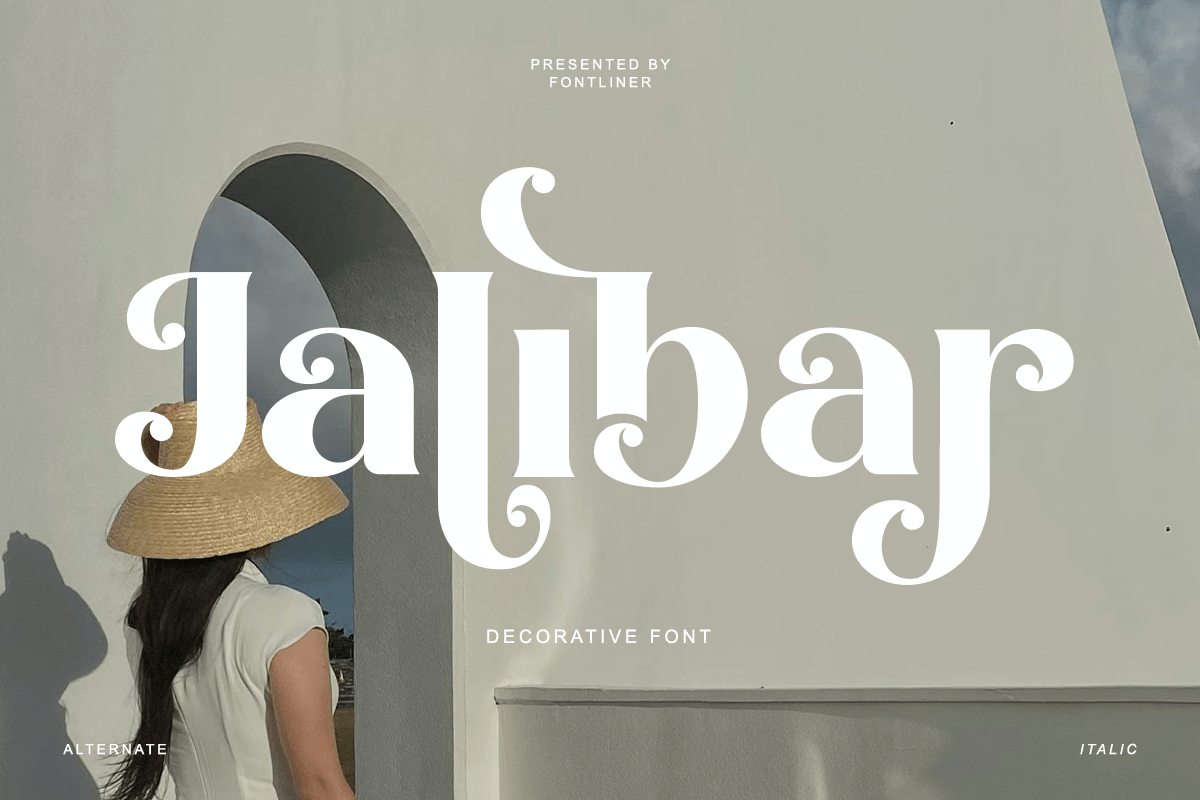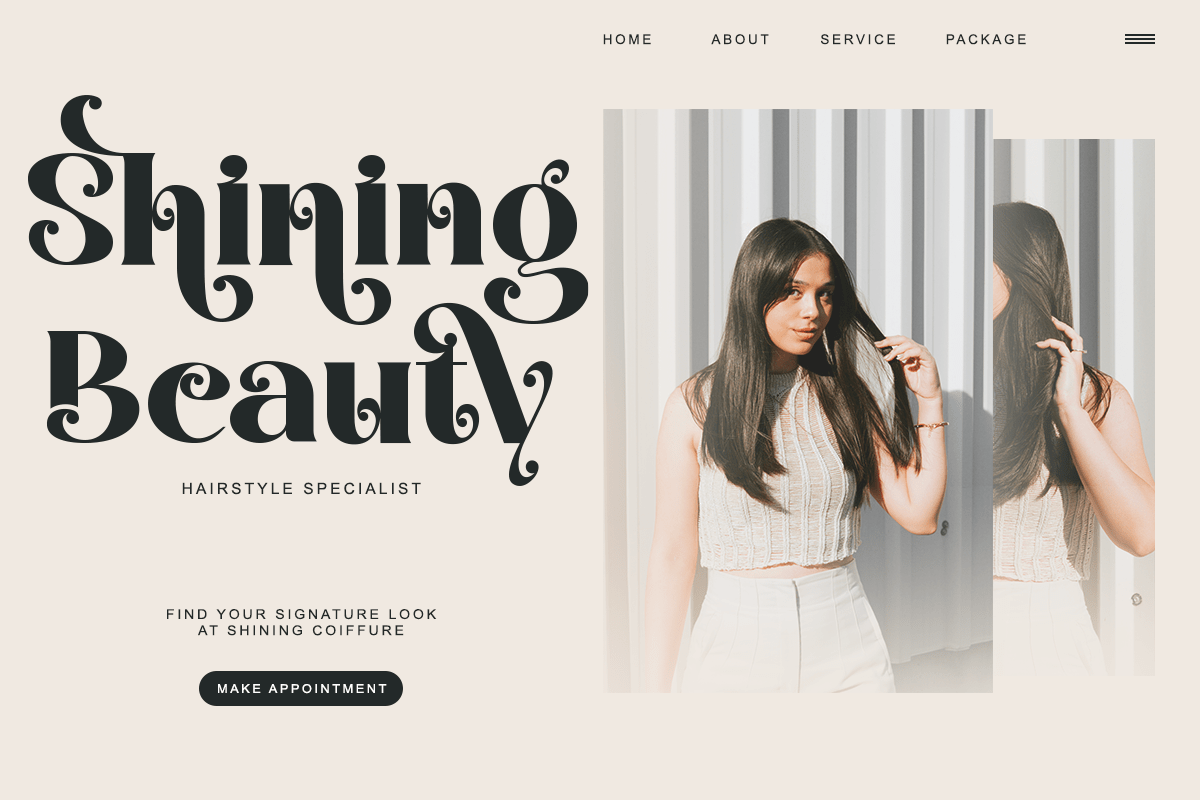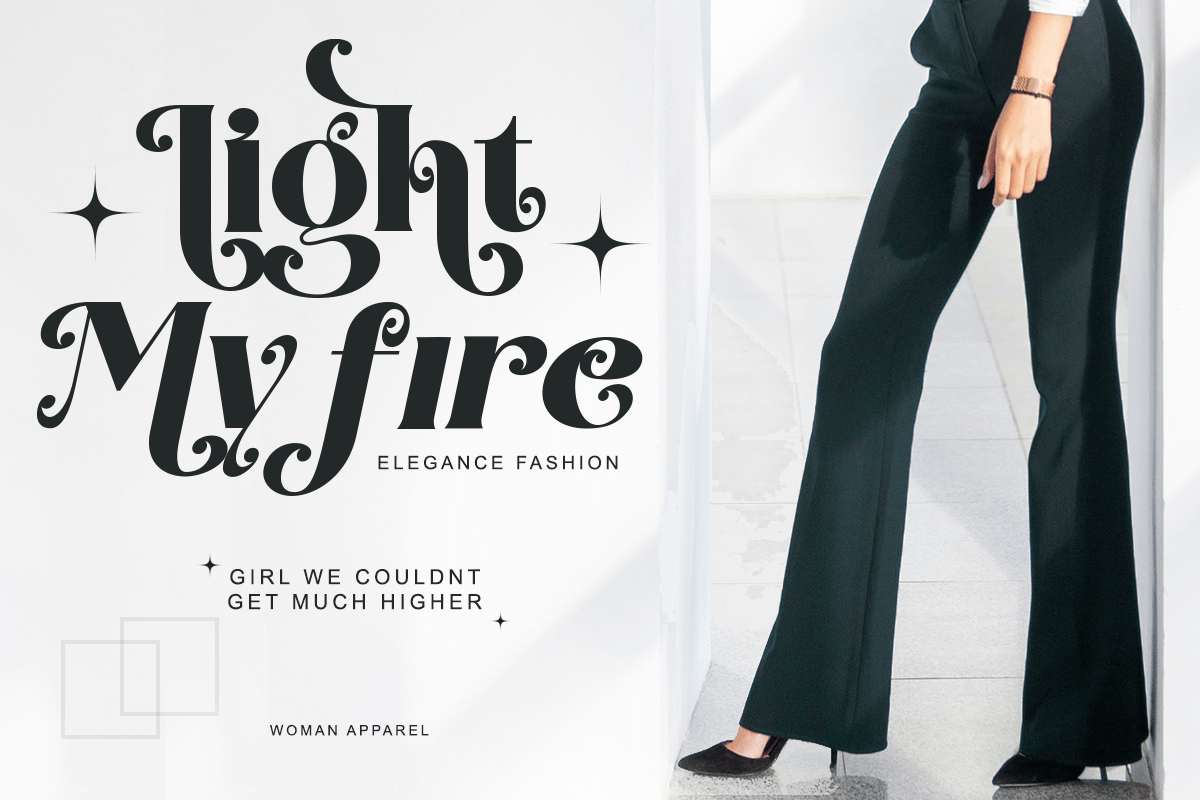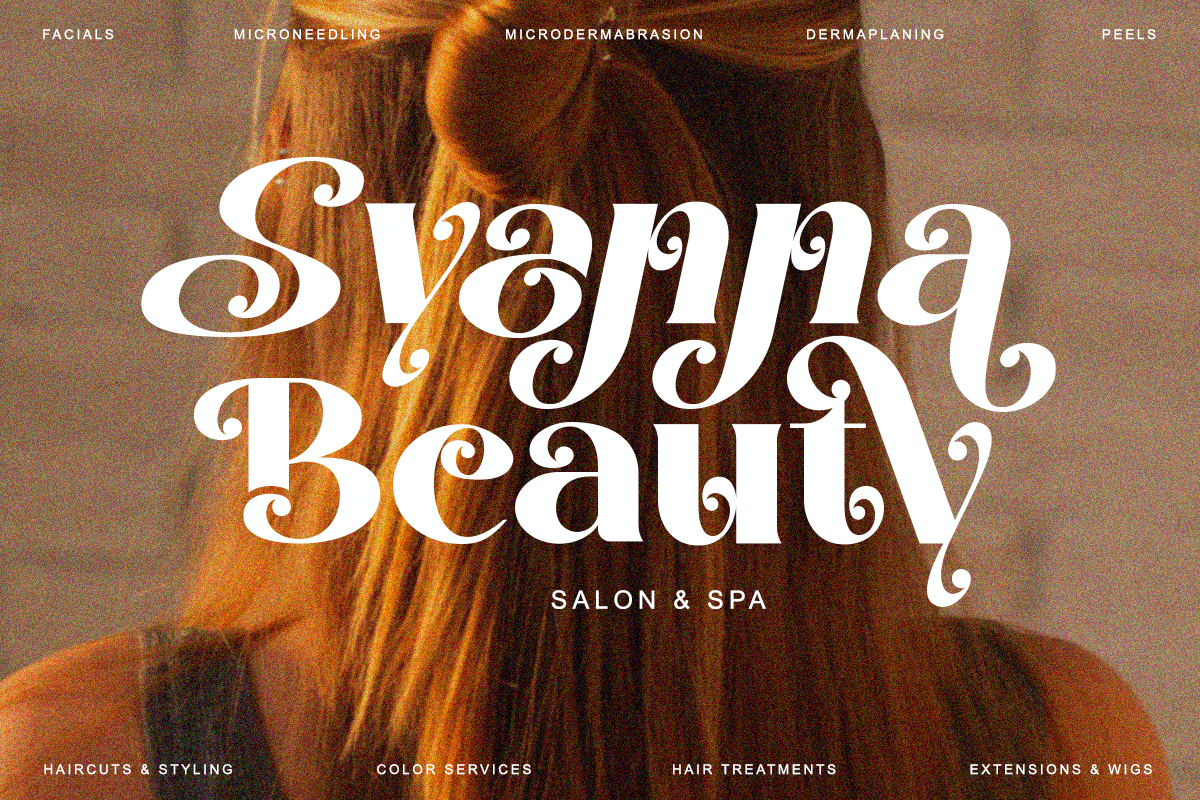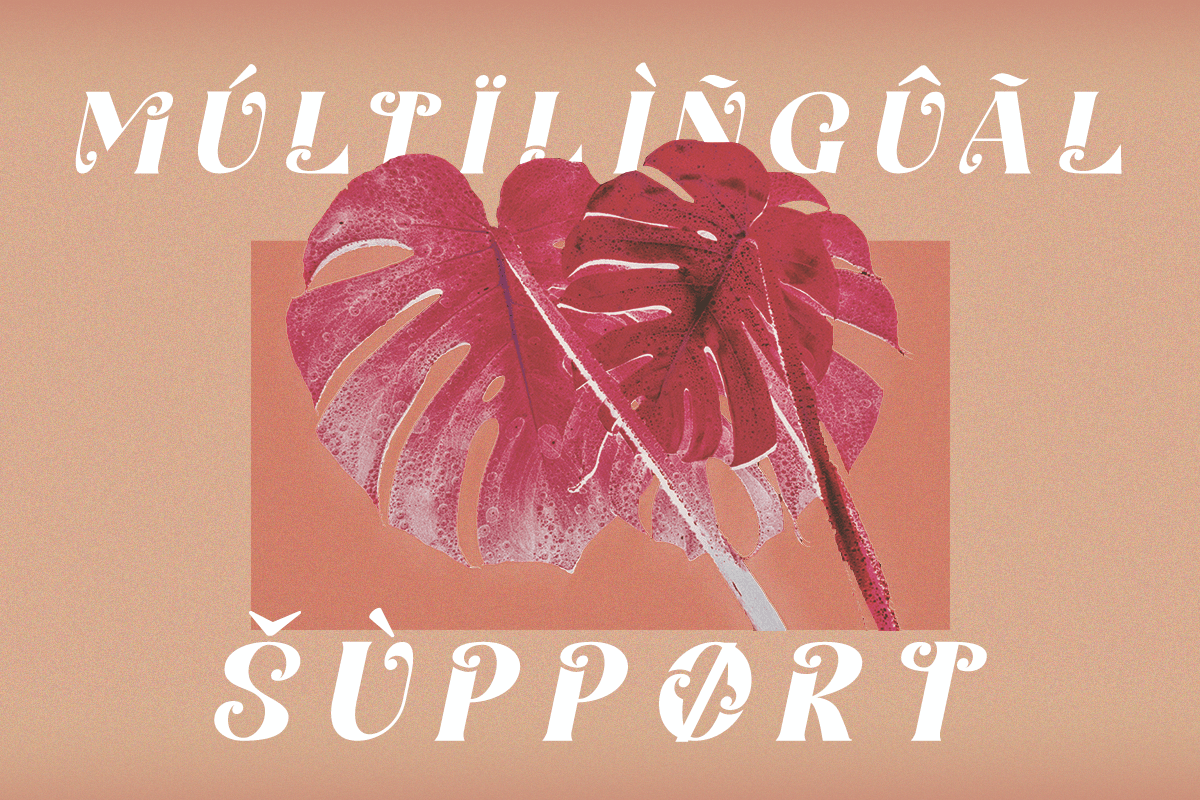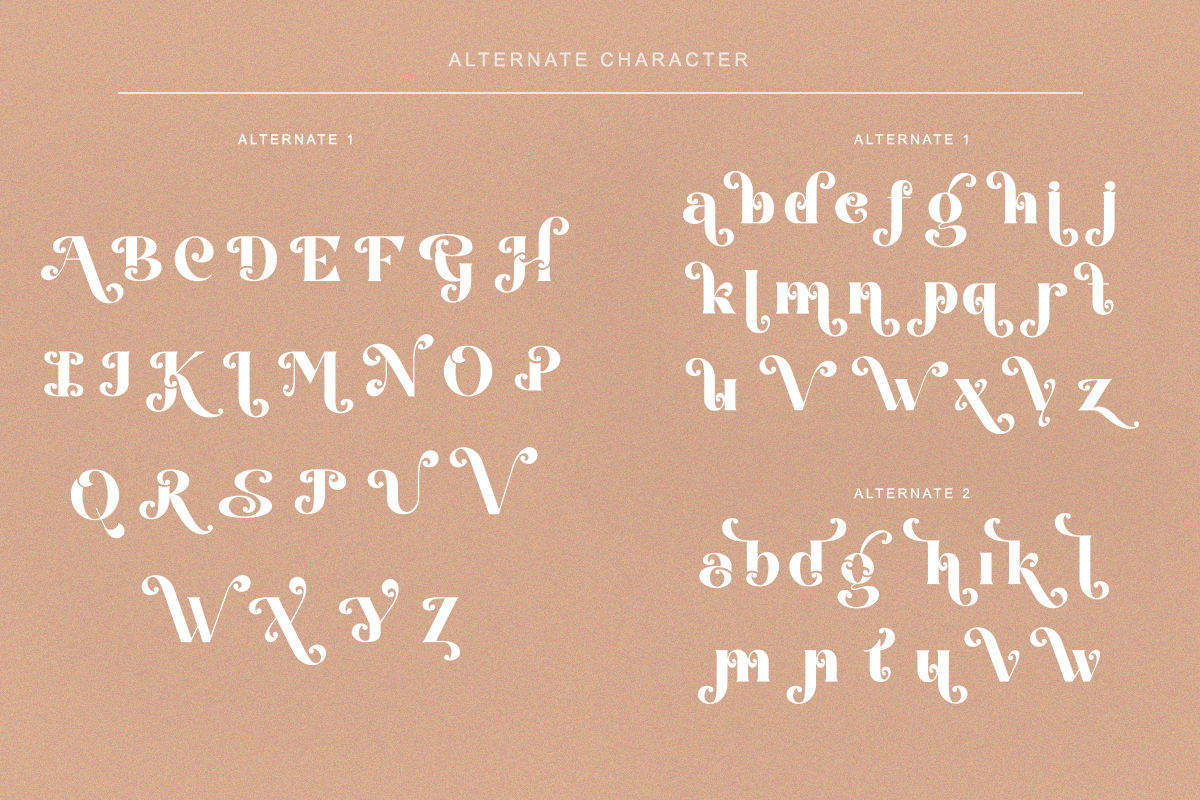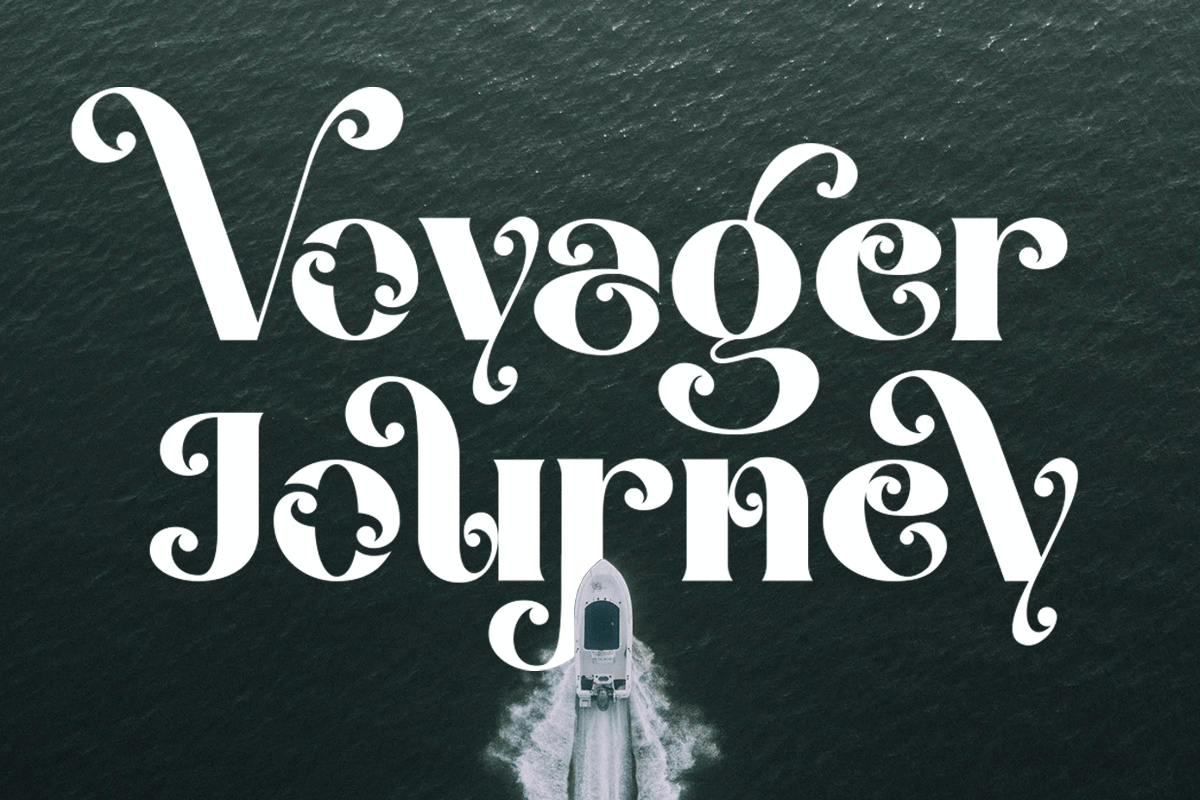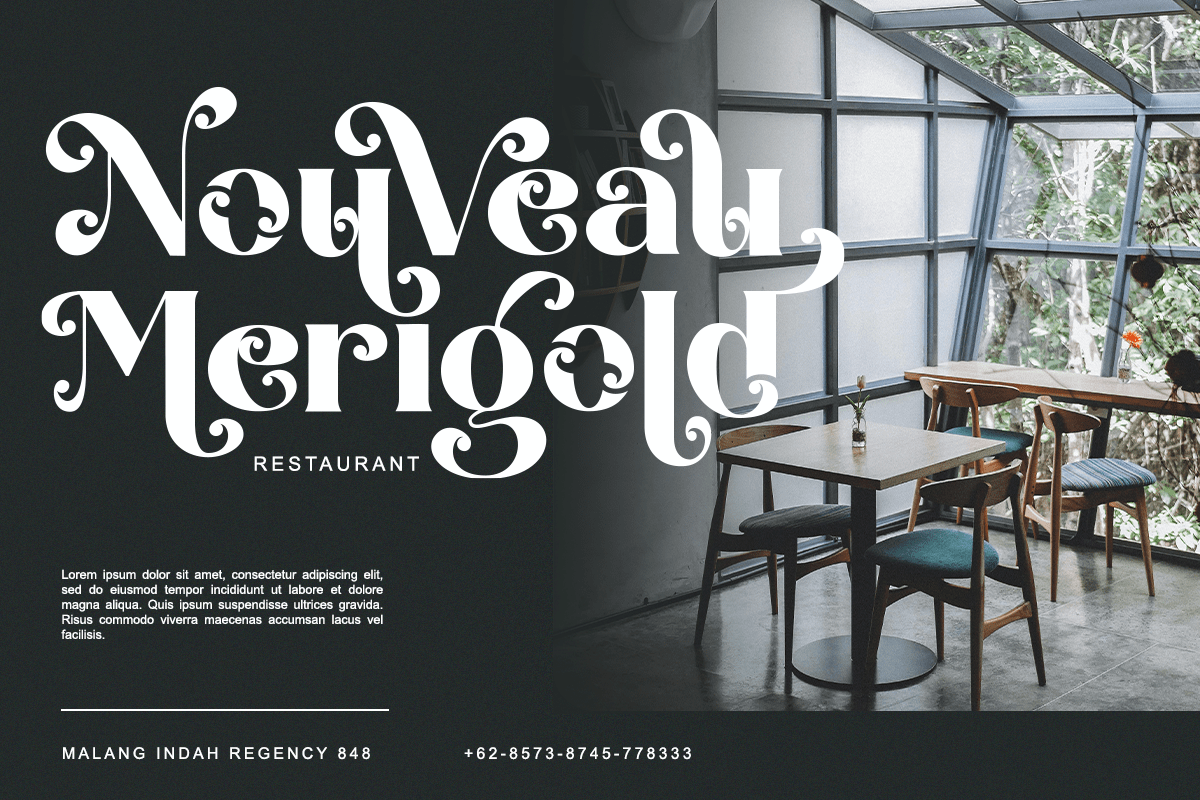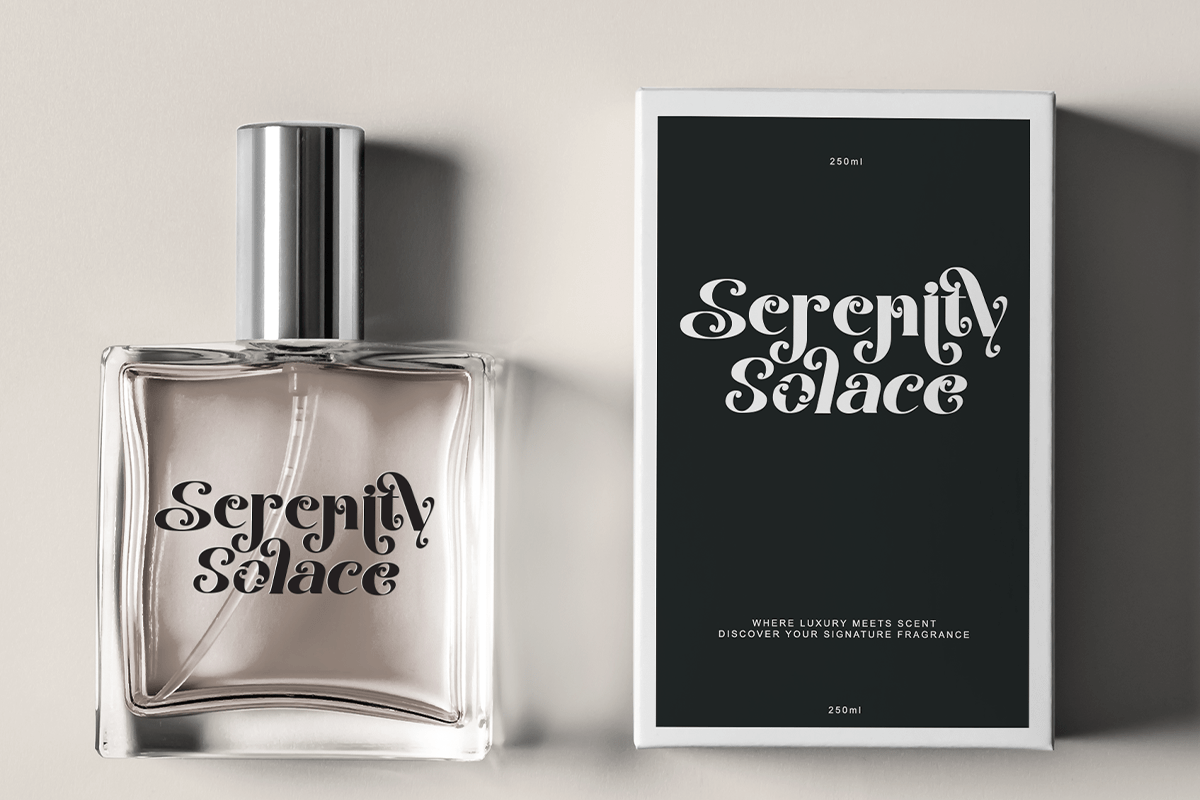
Jalibar – Decorative Display Font
Jalibar is a decorative display font that blends vintage elegance with artistic ornamental details. Featuring beautifully crafted curves, expressive swashes, and distinctive serif-inspired forms, this typeface creates typography that is both sophisticated and unforgettable. Its unique character makes Jalibar ideal for designers who want to build luxurious branding with a timeless decorative touch.
Designed for fashion brands, restaurants, cafés, hotels, beauty products, perfumes, editorial layouts, magazines, boutique businesses, packaging, logos, invitations, social media, and premium marketing materials, Jalibar delivers a refined aesthetic across both print and digital media. Whether you’re designing elegant headlines, luxury packaging, or memorable brand identities, this font offers exceptional visual impact with excellent readability.
Jalibar includes uppercase and lowercase characters, decorative alternates, multilingual support, numerals, punctuation, and symbols, providing complete creative flexibility for professional design projects. From high-end branding and editorial typography to hospitality identities and cosmetic packaging, Jalibar is the perfect decorative display font for creating elegant, artistic, and premium visual experiences.
– Stylistic alternates
– Uppercase, Lowercase & Ligatures